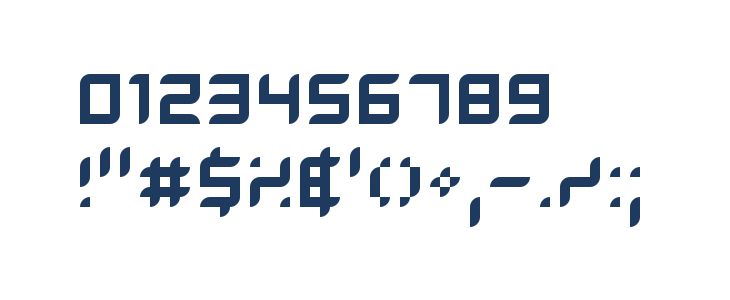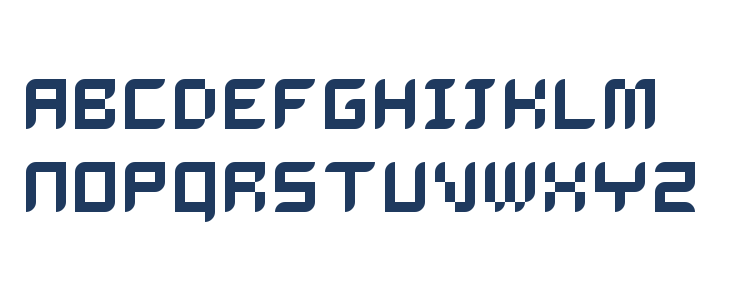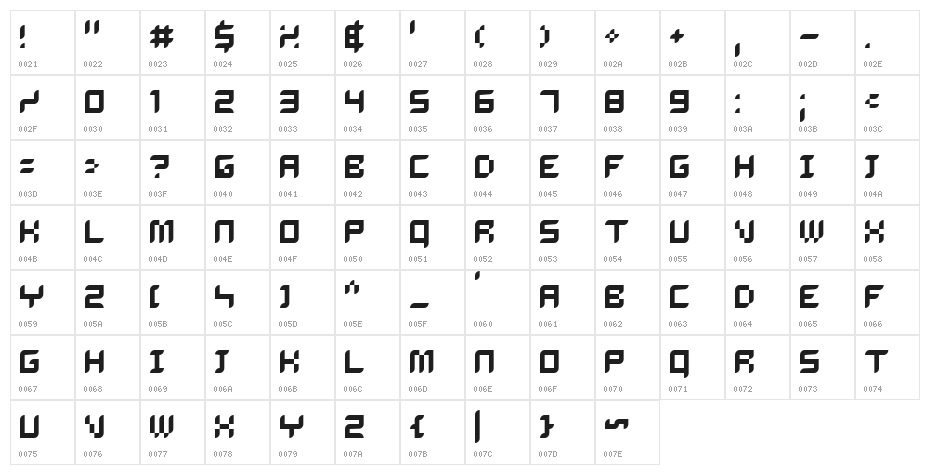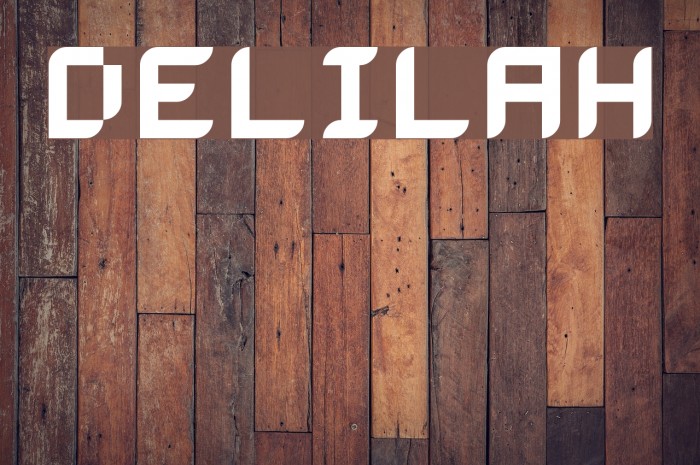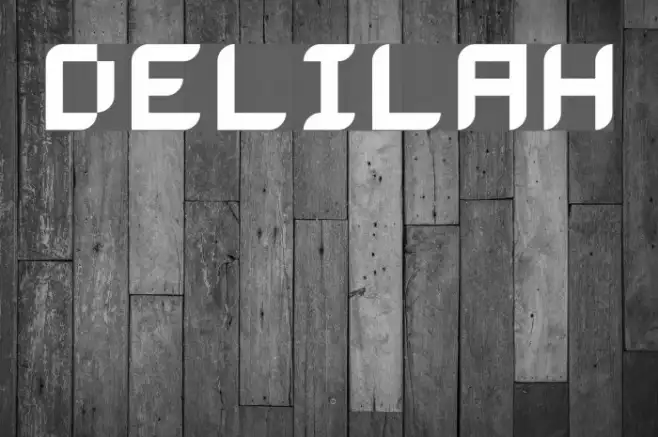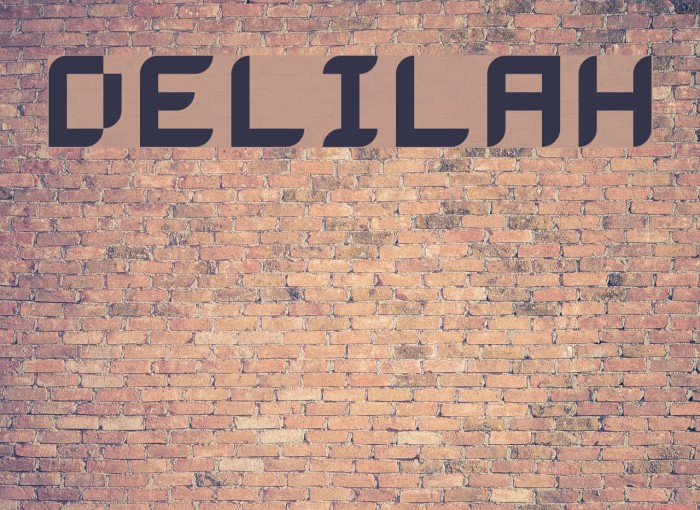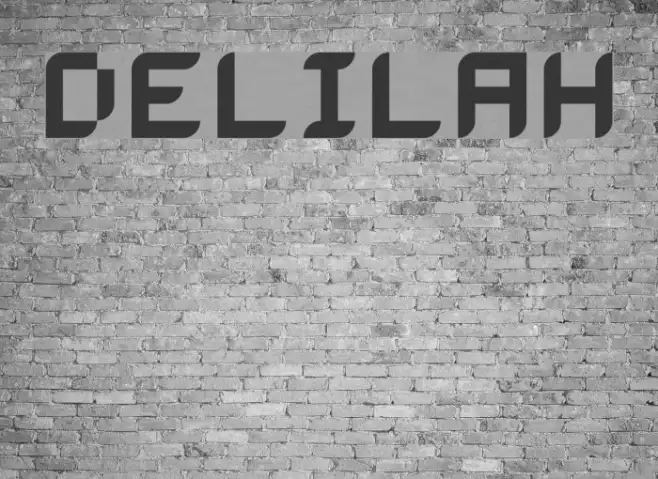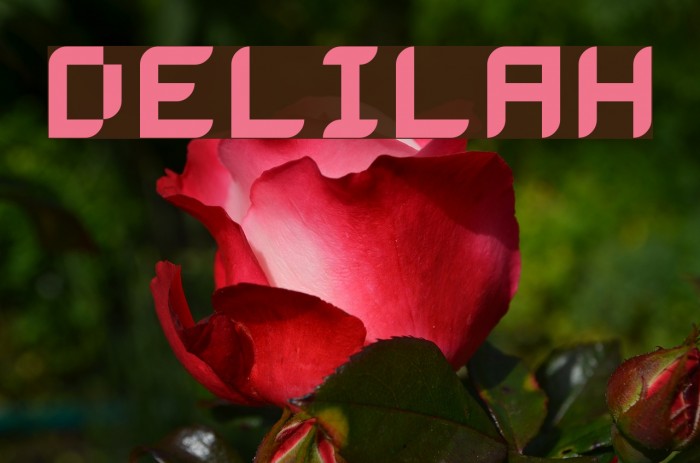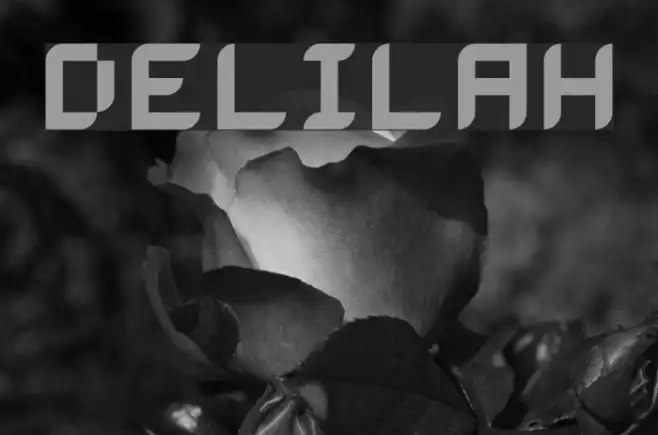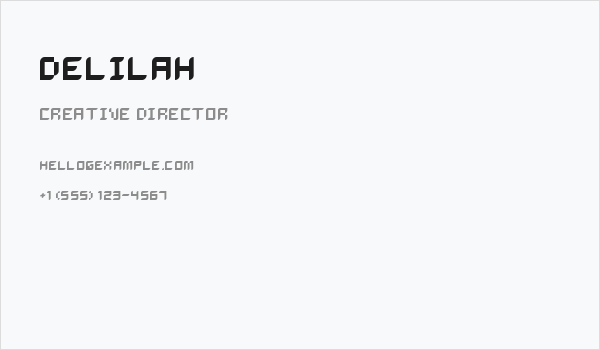
Delilah Font
Delilah Description
This font features a bold, geometric design with a modern and futuristic aesthetic. The characters are constructed with sharp angles and clean lines, giving it a distinctive, tech-inspired look. The uppercase and lowercase letters maintain a consistent style, with uniform stroke widths that contribute to a cohesive appearance. The numerals and special characters follow the same design principles, ensuring a harmonious overall feel. The font's strong visual impact makes it suitable for projects that require a contemporary and edgy vibe.
DELILAH UPPERCASE
DELILAH LOWERCASE
DELILAH OTHER CHARS